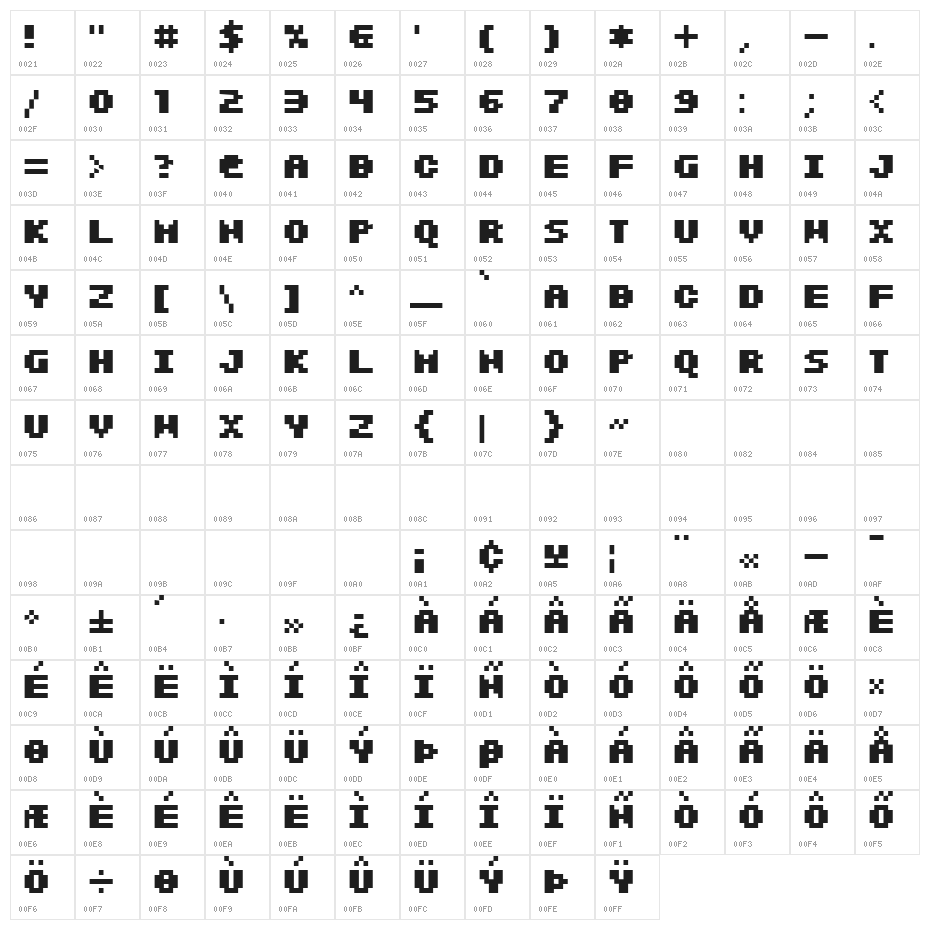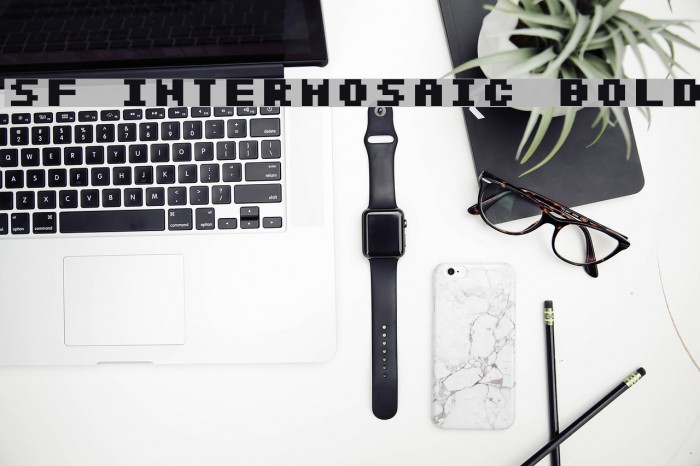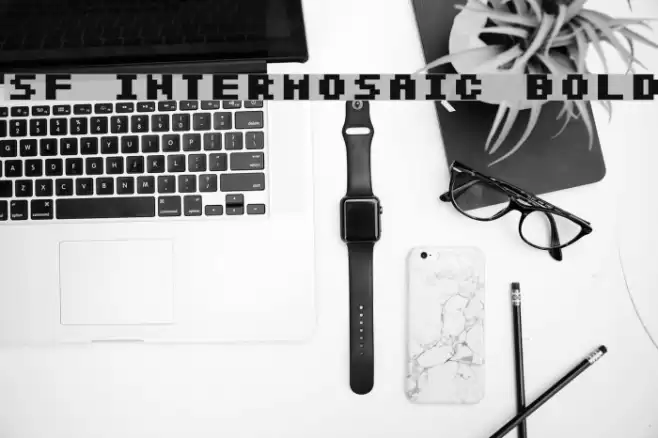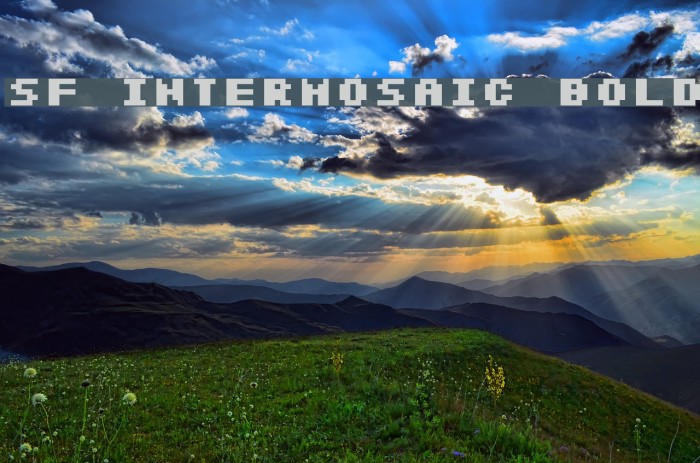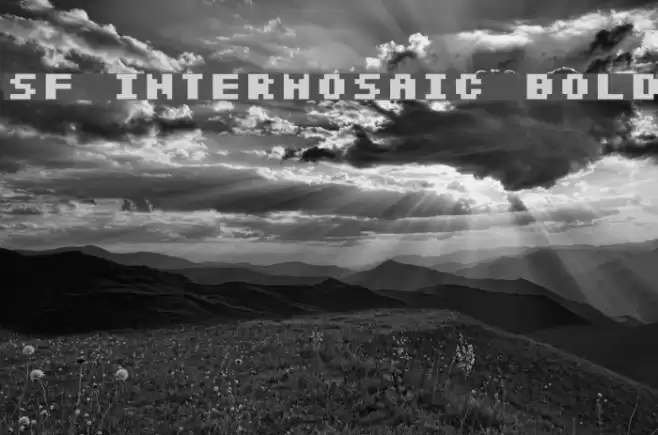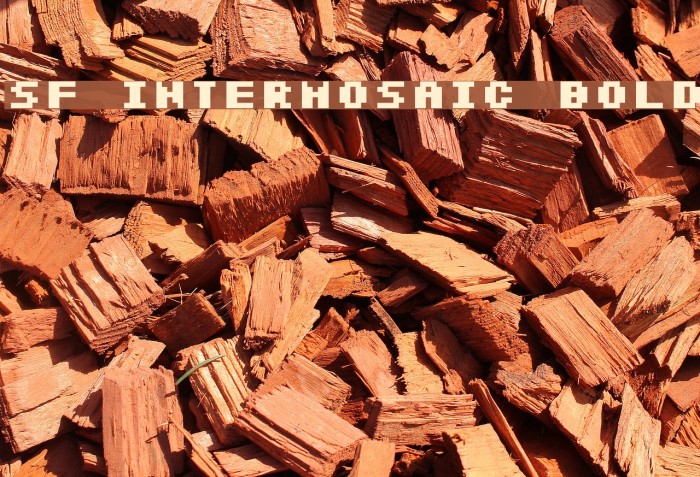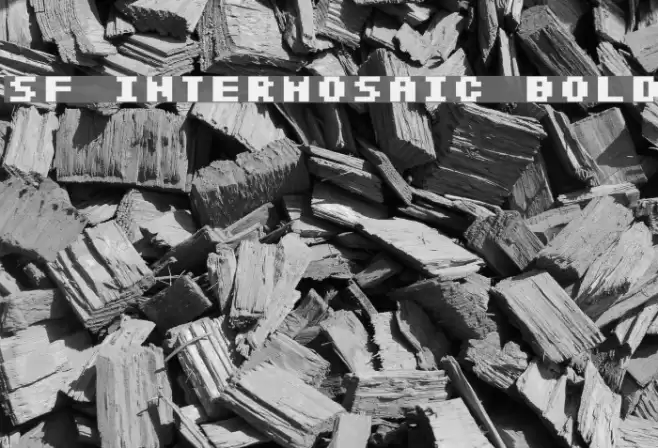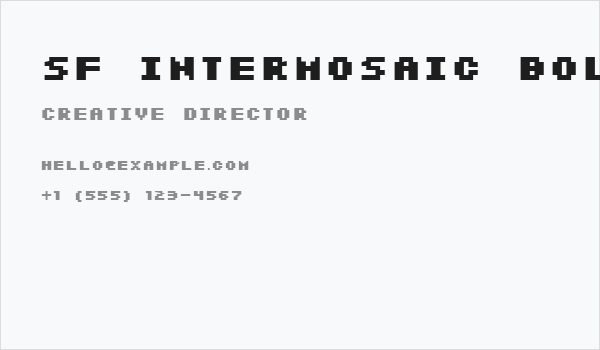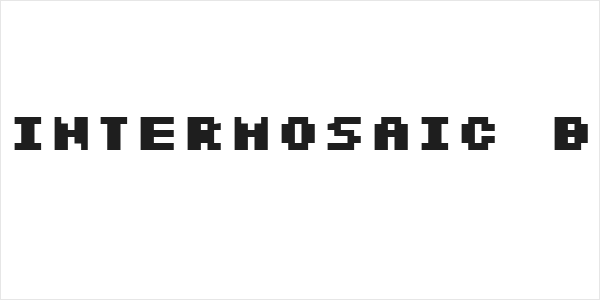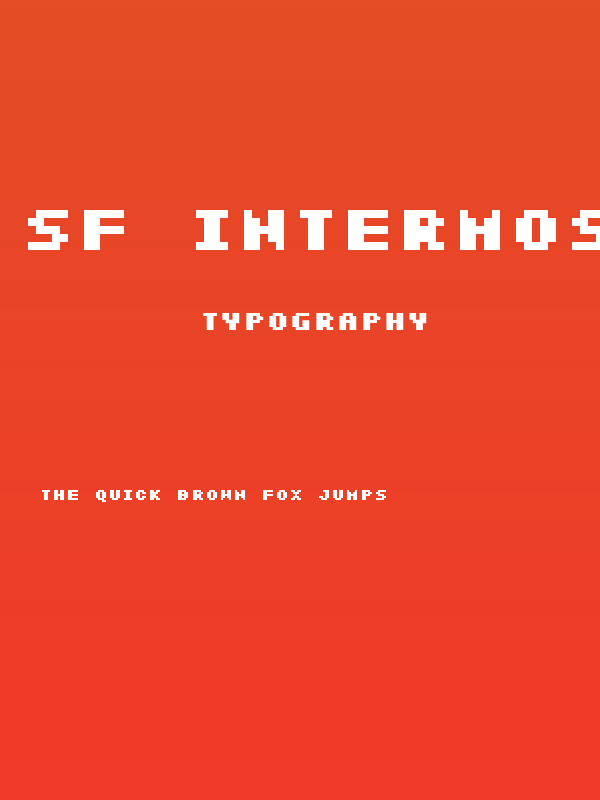
SF Intermosaic Bold Font
SF Intermosaic Bold Description
This font features a bold, pixelated design reminiscent of early digital displays and retro video games. Each character is constructed with a blocky, grid-like structure, giving it a distinctly digital and geometric appearance. The uniformity in stroke width across all characters contributes to a cohesive and robust visual impact. The font maintains a consistent height and width, ensuring a balanced and orderly presentation. Its simplicity and clarity make it highly legible, even at smaller sizes. The design is both nostalgic and modern, appealing to projects that aim to evoke a sense of digital nostalgia or a tech-inspired aesthetic.
Overall StyleRetro, Digital
Proposed ProjectsIdeal for video game design, tech-themed posters, digital art projects, and retro-inspired branding.